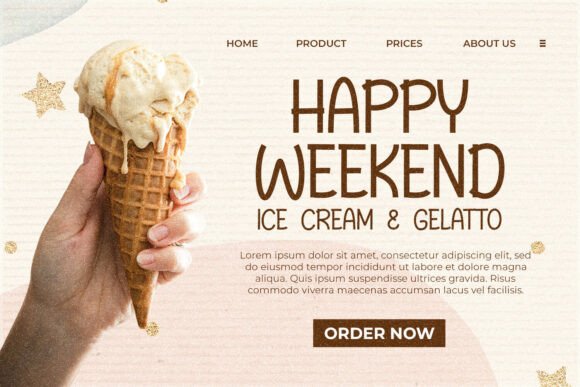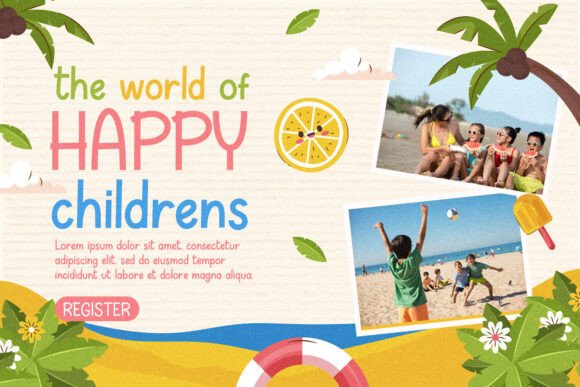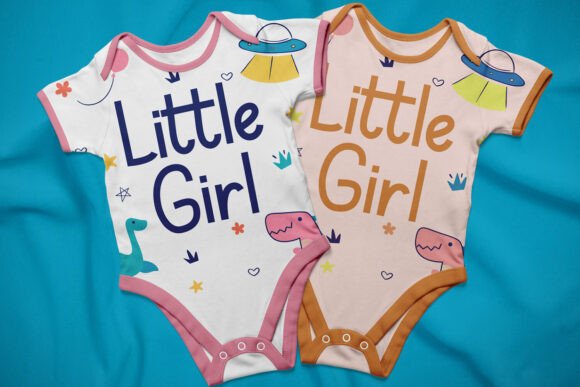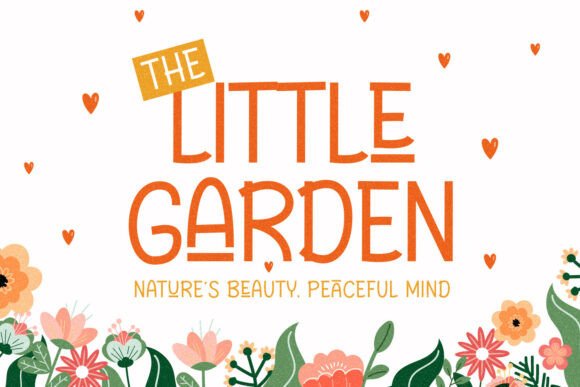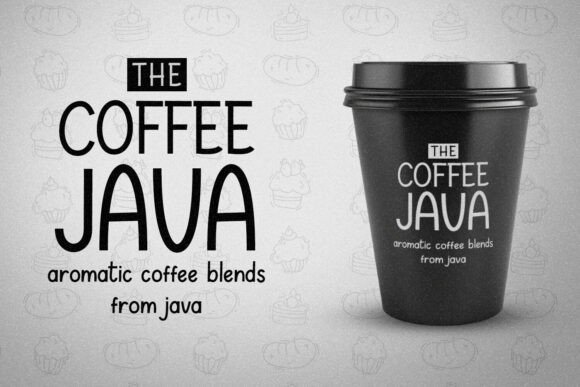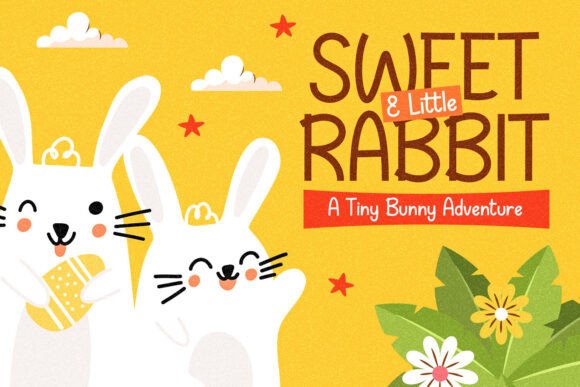
Frolla Font: The Ultimate Choice for Friendly and Creative Designs
Are you looking for a font that can add a touch of warmth and playfulness to your design projects? Look no further than Frolla Font! This charming handwritten font is perfect for designers, crafters, and anyone who wants to create friendly and approachable designs that stand out from the crowd. In this article, we’ll explore the features and benefits of Frolla Font, and why it’s a must-have for your font collection.
The Charm of Frolla Font
Frolla Font is a beautifully crafted handwritten font that exudes a sense of casual elegance. Its playful and charming look makes it perfect for a wide range of design projects, from personal crafts to professional branding. With Frolla, you can add a touch of personality to your designs, making them more relatable and engaging to your audience.
One of the standout features of Frolla Font is its versatility. It can be used for a variety of design projects, including:
- Personal crafts, such as handmade cards, invitations, and scrapbooking
- Professional branding, including logos, business cards, and marketing materials
- Digital designs, such as social media graphics, blog posts, and website headers
- Stationery, including letterheads, notebooks, and journals
Why Choose Frolla Font?
So, why should you choose Frolla Font for your design projects? Here are just a few reasons:
- Unique and Playful Look: Frolla Font has a one-of-a-kind, handwritten look that’s both playful and charming. It adds a touch of personality to your designs, making them more engaging and relatable.
- Versatile: Frolla Font can be used for a wide range of design projects, from personal crafts to professional branding.
- Easy to Read: Despite its playful look, Frolla Font is easy to read, making it perfect for body text and headlines.
- High-Quality: Frolla Font is a high-quality font that’s designed to deliver exceptional results.
How to Use Frolla Font
Using Frolla Font is easy! Here are a few tips to get you started:
- Pair it with Other Fonts: Frolla Font pairs well with other fonts, including serif and sans-serif fonts. Experiment with different combinations to find the perfect look for your design.
- Use it for Headlines and Body Text: Frolla Font is perfect for both headlines and body text. Use it to add a touch of personality to your designs.
- Experiment with Colors: Frolla Font looks great in a variety of colors. Experiment with different colors to find the perfect look for your design.
In conclusion, Frolla Font is a charming and playful handwritten font that’s perfect for designers, crafters, and anyone who wants to create friendly and approachable designs. Its versatility, unique look, and ease of use make it a must-have for your font collection. Whether you’re designing for fun or business, Frolla Font is the perfect choice to bring creativity and warmth to your projects.